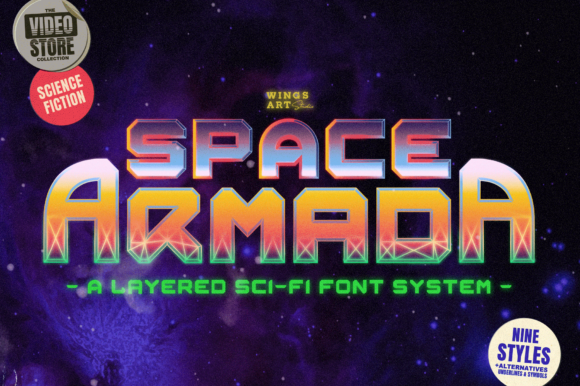
Prepare to voyage into the cosmos of creativity with Space Armada, a font family that's out of this world! A love letter to the 1980s vision of the future, this font collection is a captivating fusion of sci-fi movie aesthetics, retro video game nostalgia, and cutting-edge home computer technology. Discover the limitless possibilities within its nine distinct fonts, designed to dance together in perfect harmony. Let your imagination soar as you layer these fonts like a symphony of digital art, creating retro-futuristic effects that will transport you to another dimension.
Embark on an effortless journey of font exploration. Begin by laying the solid foundation of the Regular font upon the Bold, creating a simple yet striking outline. Unleash your creativity by adding vibrant gradients to both fonts, evoking the mesmerizing shine of metal or chrome. Take your designs to new heights with the readymade Outlines, adding an embossed effect that brings depth and texture to your creations. Step into the digital realm with the Wireframe font, offering a tantalizing glimpse into the inner workings of your designs. Amplify its allure by applying a luminous glow effect and reducing its opacity, allowing the underlying layers to peek through, creating an ethereal and captivating visual experience. This is merely a glimpse into the boundless possibilities that await you with Space Armada.
Dive into a world of limitless customization with Space Armada's all-caps font structure. Experiment with unique uppercase and lowercase characters, along with a treasure trove of alternatives, empowering you to craft designs that truly stand out. Express yourself with punctuation, numerals, and comprehensive language support, ensuring your messages transcend linguistic boundaries. Elevate your designs with a selection of underlines and symbols, adding intricate details that elevate your creations to new heights.
Unleash the full potential of Space Armada in a universe of retro-futuristic design possibilities. Embark on a creative odyssey, crafting movie titles that ignite imaginations, designing posters that transport viewers to distant galaxies, developing game interfaces that immerse players in virtual worlds, or creating book covers that entice readers with tales of adventure and intrigue. The possibilities are as boundless as the cosmos itself.
Don't settle for ordinary fonts. Embrace the extraordinary with Space Armada, the font family that will transform your designs into captivating works of art. As Neil Armstrong famously declared, "That's one small step for man, one giant leap for mankind." Take that leap into the unknown, download Space Armada today, and witness the birth of a new design legacy.